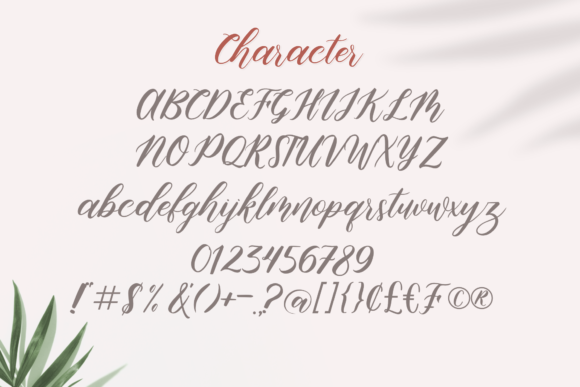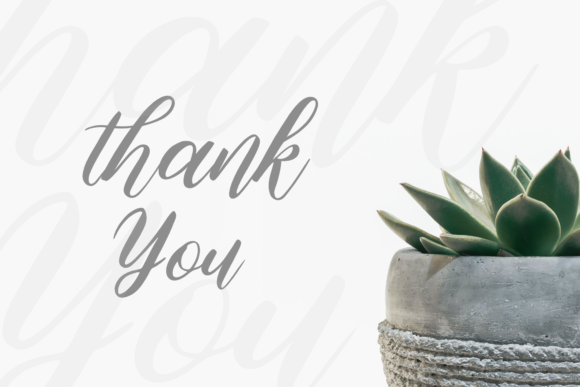
Introduction to Montella Font
Enter Montella Font, a delightful script font that’s sure to captivate your audience. Its charming, playful characters seem to dance along the baseline, adding a touch of whimsy to any design. Whether you’re working on a logo, a poster, or a digital product, Montella Font is the perfect design resource to elevate your creative project.
Key Features of Montella Font
- High-quality design resource with a unique and creative style, perfect for various projects.
- Montella Font supports a wide range of languages, including Latin, Cyrillic, and Greek scripts.
Honest Review: Montella Font
I recently stumbled upon the Montella Font, and I must say it’s a great addition to any designer’s toolkit. The Montella Font is a free download, making it a fantastic design resource for those on a budget or looking to experiment with new typography.
What works well is its high quality and versatility. The font comes in a range of styles, from casual to elegant, making it suitable for a variety of creative projects. The transparent background is also a nice touch, allowing designers to easily layer the font over different images or backgrounds.
One limitation of the Montella Font is its limited character set. While it’s not a deal-breaker, it may require additional font pairing for more complex designs. Additionally, the font’s elegance may not be suitable for more playful or edgy projects.
Overall, I’m impressed with the Montella Font. Its high quality, versatility, and free download make it a valuable design resource. While it may have some limitations, it’s a great choice for designers looking for a reliable and elegant font.
Montella Font
The Montella Font is a high-quality design resource that offers a free download for creative projects. This versatile font is perfect for designers looking for a unique and stylish typography solution.
The Montella Font is commonly used for branding, logos, and marketing materials, as well as for creating engaging social media graphics and presentations. Its unique style and high-quality design make it an ideal choice for designers looking to add a touch of sophistication to their creative projects.